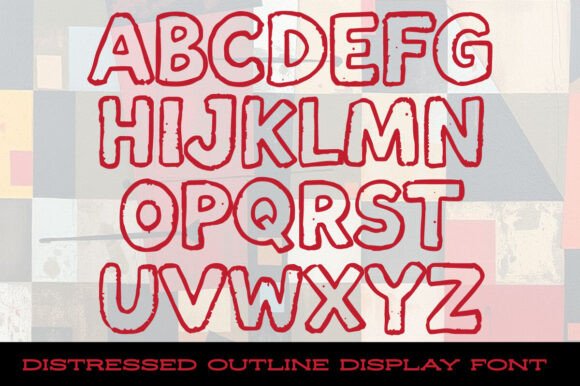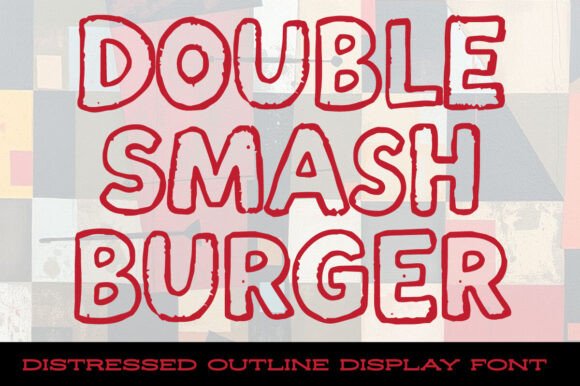
Introduction to Hollowine Font Font
Fonts play a crucial role in design, and the Hollowine Font font is a typeface that brings both character and versatility to any project. Whether you’re working on a branding project, a website, or a print design, the Hollowine Font font offers a unique style that can elevate your work.
Hollowine is a bold, hand-crafted outline font with a raw, textured edge.
Its eroded details give each character a weathered, organic feel, perfect for designs that need an authentic, rustic touch Whether used for vintage-inspired posters, artisanal branding, or edgy headlines, Hollowine captures attention with its imperfect yet striking style.
Key Features of Hollowine Font Font
Why Choose Hollowine Font Font?
The Hollowine Font font is more than just a typeface – it’s a design tool that helps you communicate your message with style and clarity. Its unique character set and versatile design make it suitable for a wide range of applications, from elegant invitations to bold headlines.
With its carefully crafted letterforms and balanced proportions, the Hollowine Font font ensures readability and visual appeal across all mediums.
What makes Hollowine Font font special?
The Hollowine Font font stands out with its unique design, exceptional readability, and versatility across various design applications.